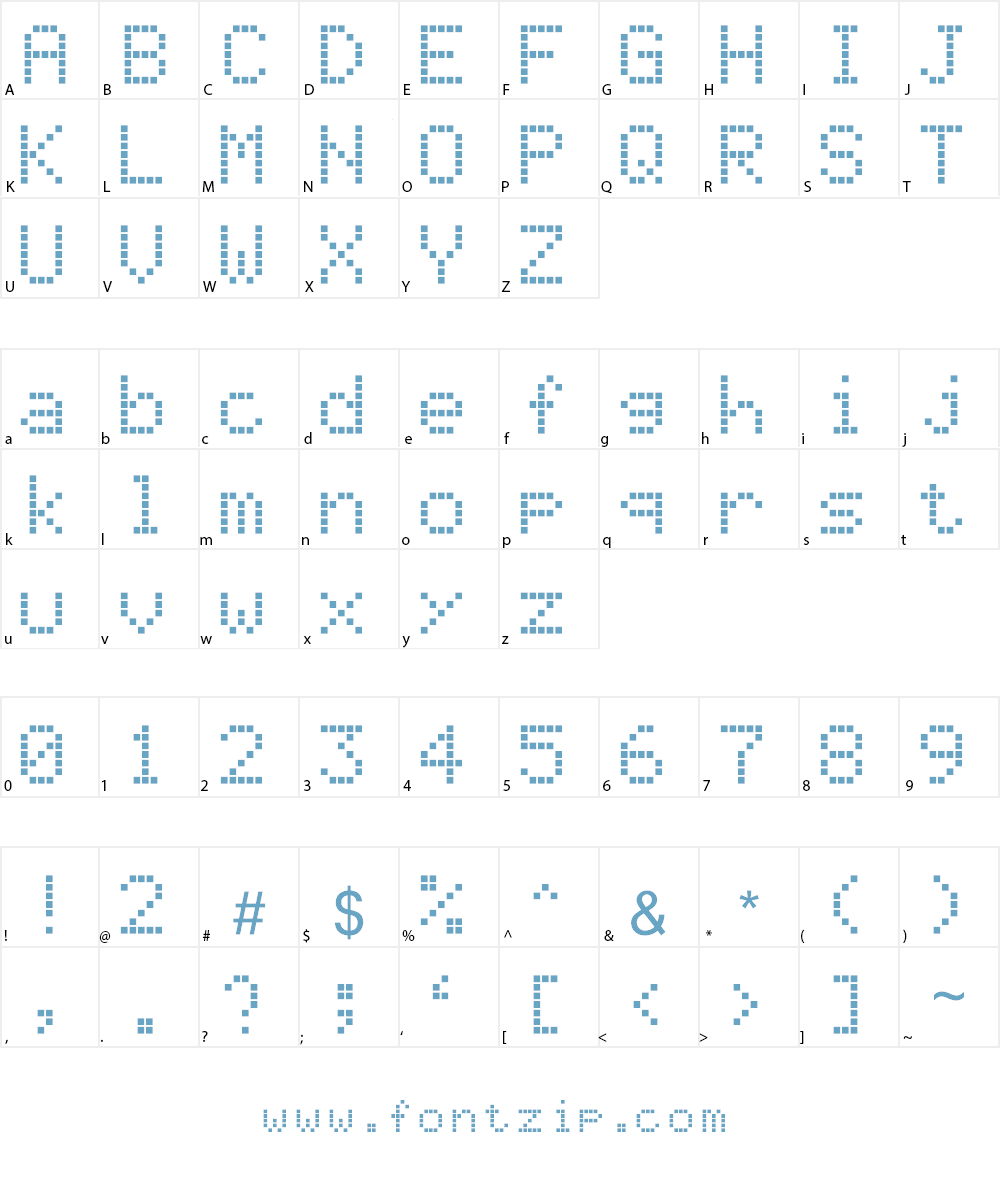
This is a companion font to my numbers only Calculator LCDs font. Unlike the original, this new font contains as many characters I could create on a 7x5 LCD display grid.